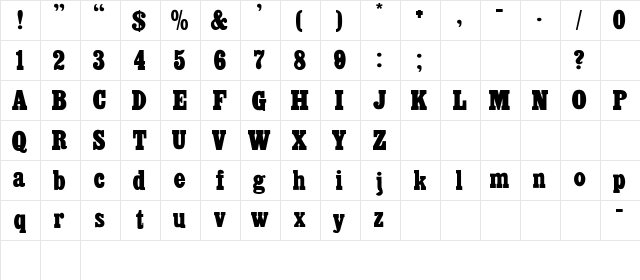
CairoExtended Regular
Design Context for CairoExtended Typeface
CairoExtended is a composed and adaptable typeface that performs quietly and consistently across a wide range of design contexts.